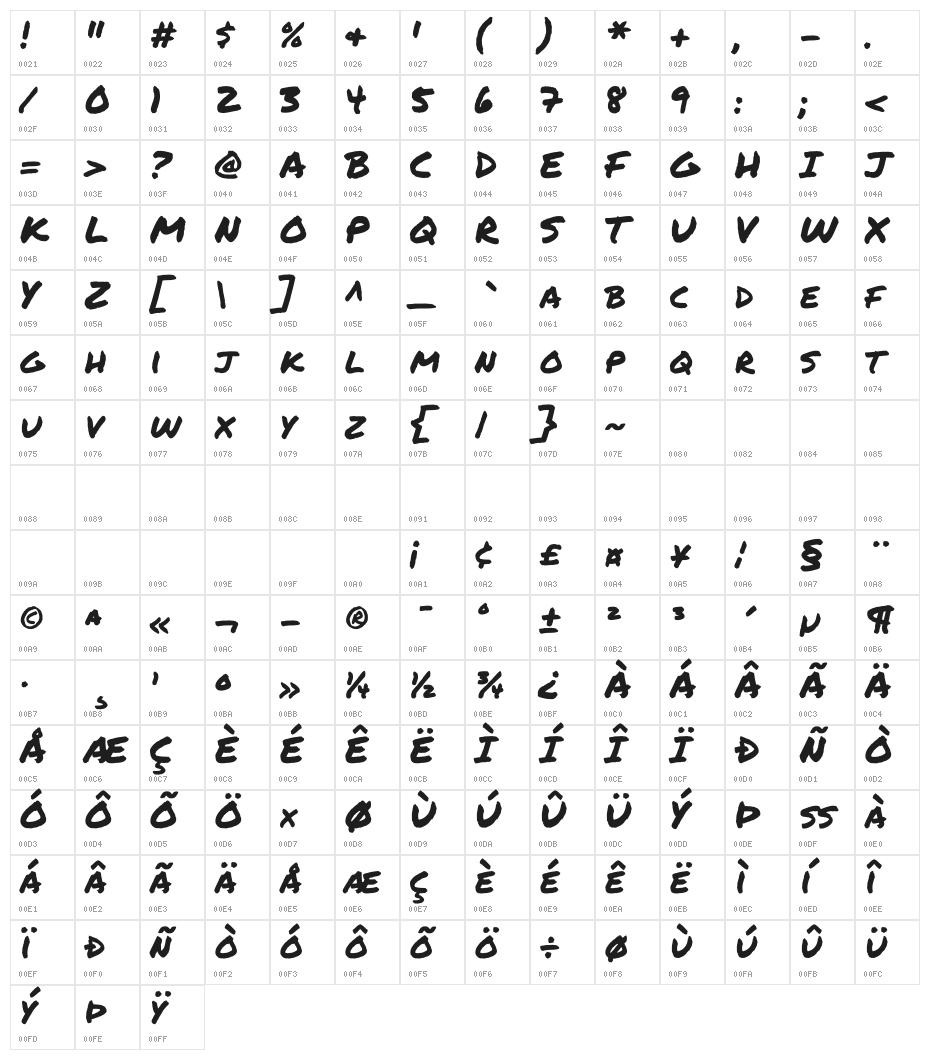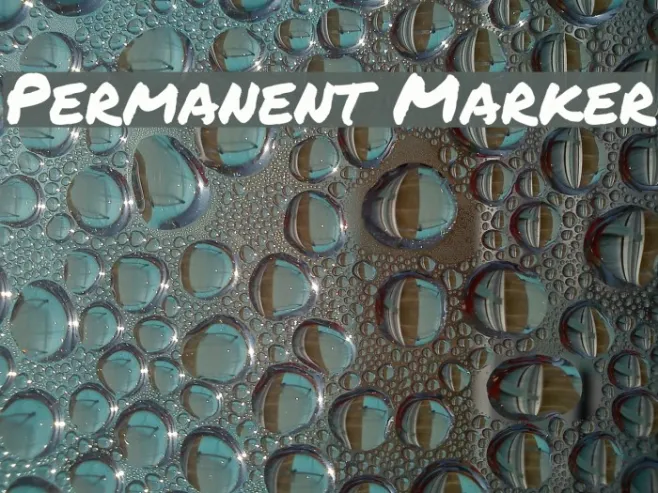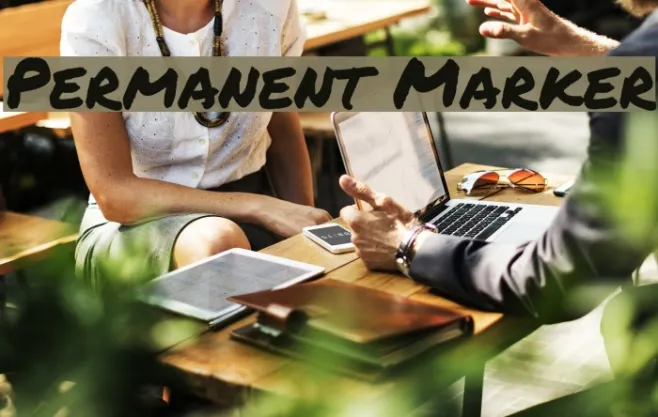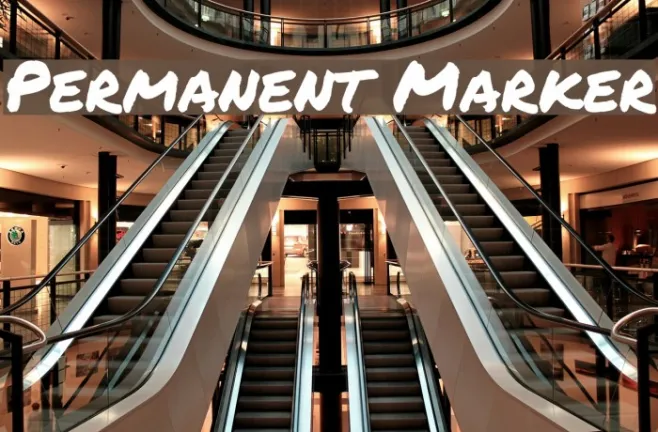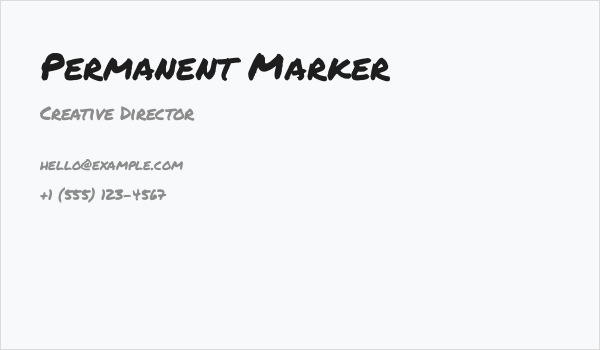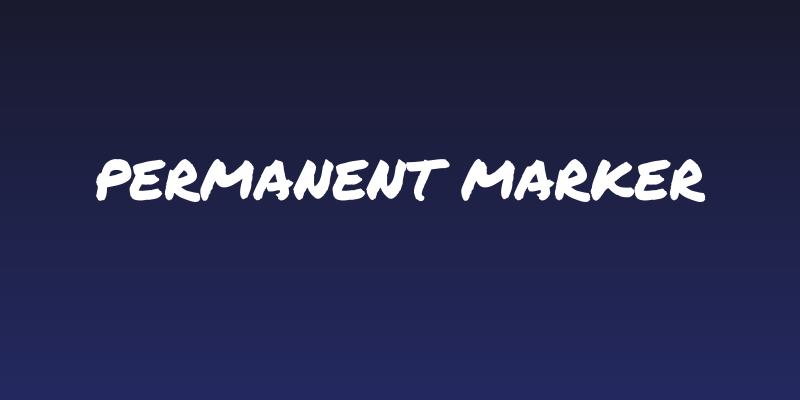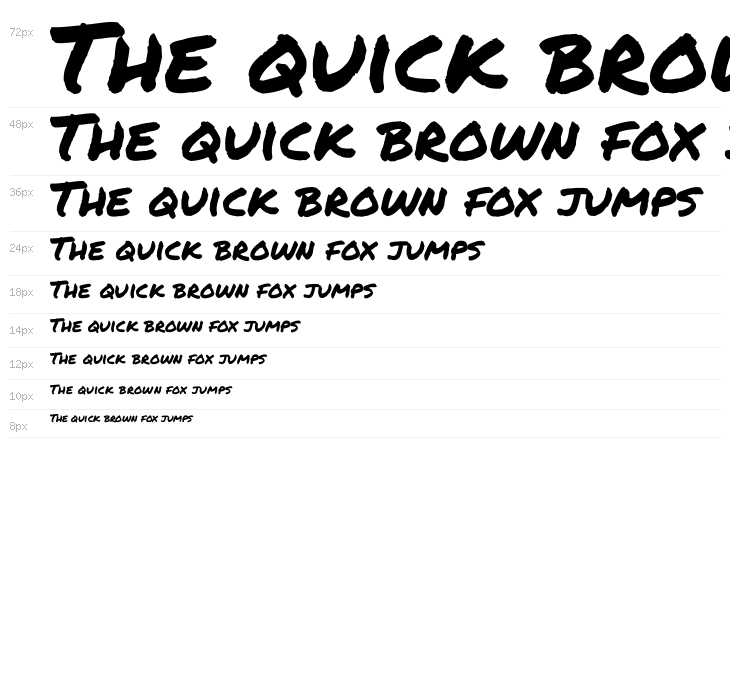
Permanent Marker Font
Permanent Marker Description
This font exudes a casual and informal vibe, reminiscent of handwritten text with a marker. The strokes are bold and slightly uneven, giving it an authentic, hand-drawn appearance. Each character is distinct, with a playful and dynamic flow that suggests movement and energy. The uppercase and lowercase letters maintain a consistent style, while the numbers and special characters complement the overall aesthetic. Its organic and approachable design makes it suitable for projects that require a personal touch.
| Use Case | Headlines, Informal text, Creative designs |
| Proposed Projects | Ideal for projects such as posters, greeting cards, social media graphics, and any design requiring a personal, informal touch. |